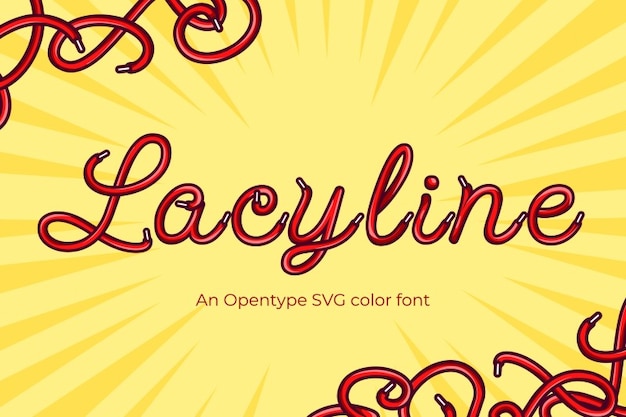
It is a font that dances across your projects like elegant shoelace loops. Its handwritten calligraphy style weaves letters together with a graceful finesse, reminiscent of delicate lacework. Whether you're crafting invitations, designing logos, or creating greeting cards, "Lacyline" adds a touch of handcrafted charm that's as intricate as fine lace.